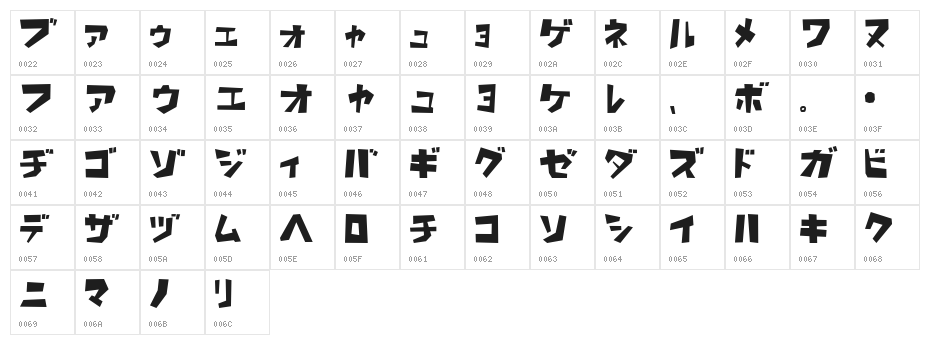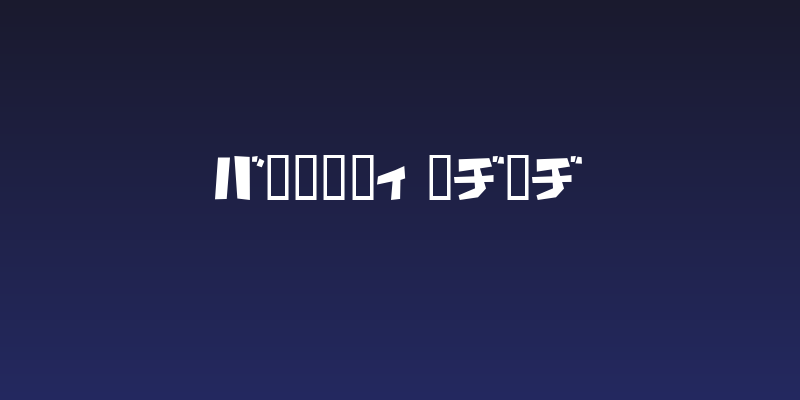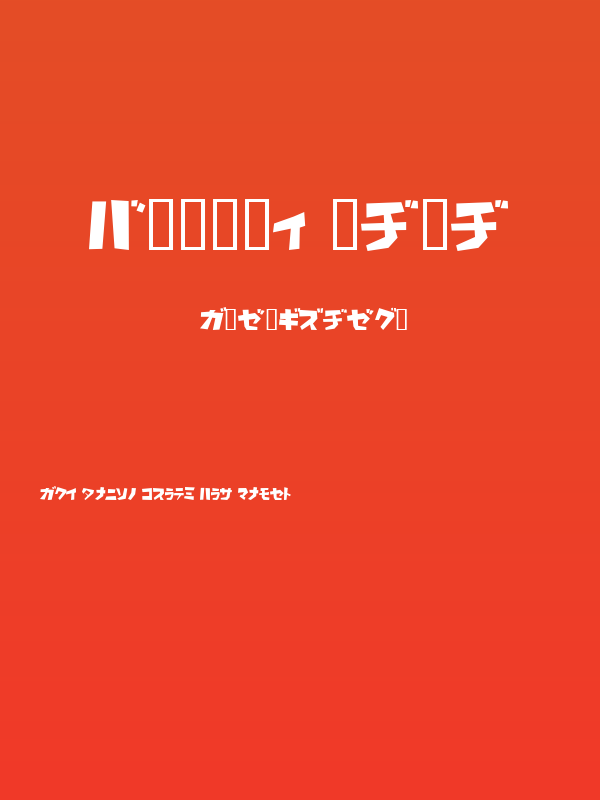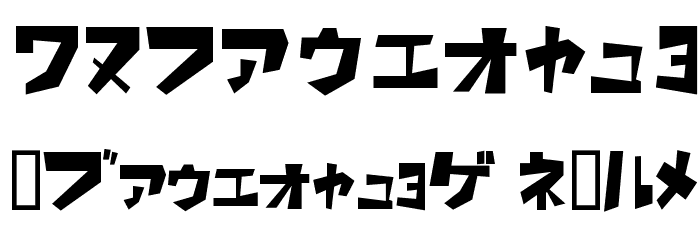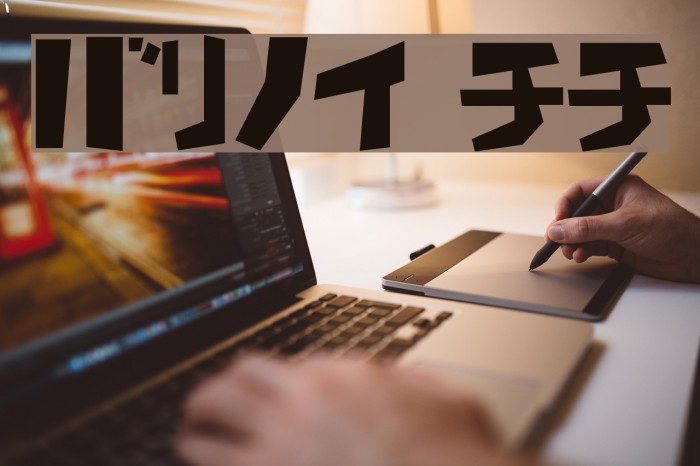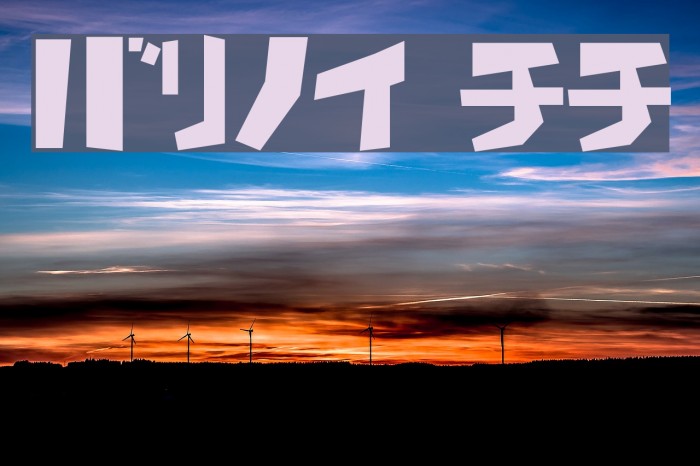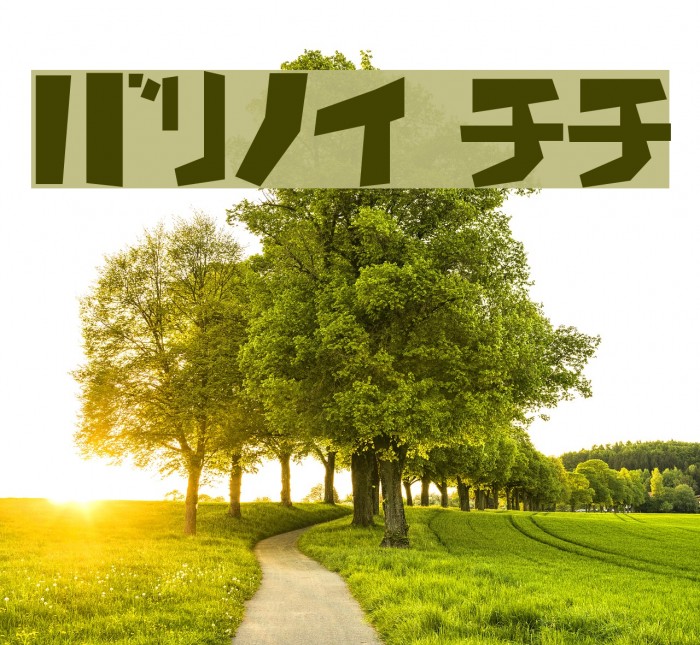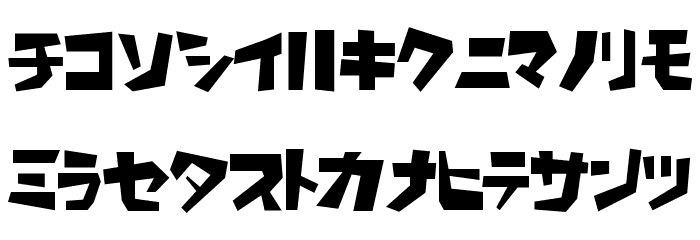
Flooke Kana Font
Flooke Kana Description
This font features bold, angular characters with a strong presence, ideal for making a statement. The strokes are thick and consistent, providing a sense of stability and impact. The characters are designed with sharp edges and a slightly condensed form, which enhances their boldness. This style is reminiscent of modern display fonts, often used for attention-grabbing headlines or titles. The uniformity in stroke width and the geometric nature of the characters give it a contemporary and assertive look, suitable for projects that require a strong visual identity.